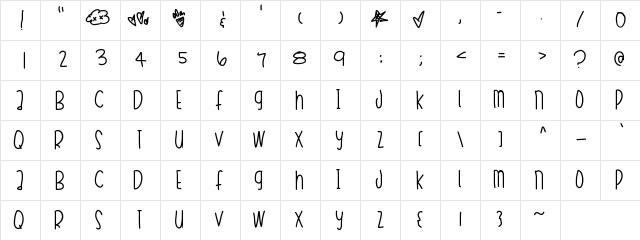
MaxiTheChiwahwah Medium Free Font
MaxiTheChiwahwah Medium
Complete MaxiTheChiwahwah Medium glyph index. Displaying only characters natively supported by MaxiTheChiwahwah Medium font.
Design Context for MaxiTheChiwahwah
MaxiTheChiwahwah is a composed and adaptable typeface that performs quietly and consistently across a wide range of design contexts.
Pro Tip: Use MaxiTheChiwahwah in both headline and body roles to test its range before committing to a single application.